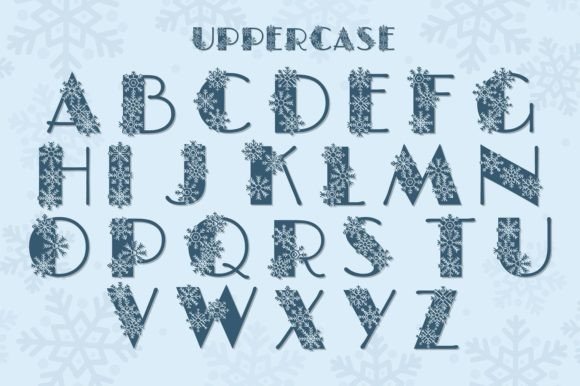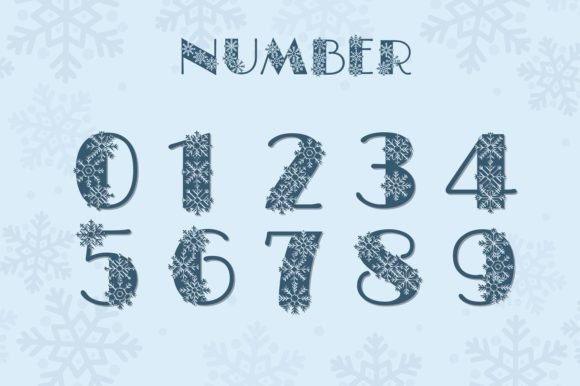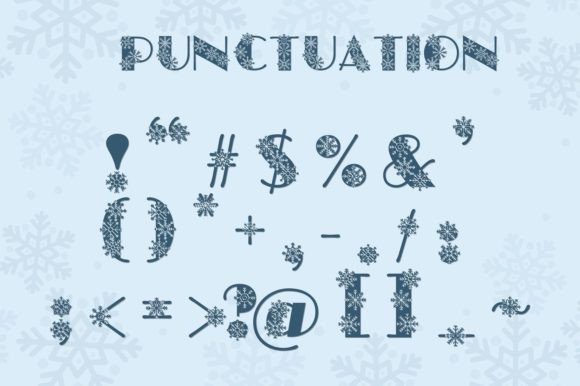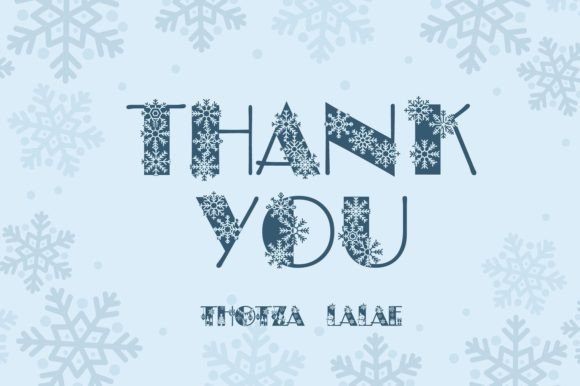
Introduction to Snow Christmas Font Font
Fonts play a crucial role in design, and the Snow Christmas Font font is a typeface that brings both character and versatility to any project. Whether you’re working on a branding project, a website, or a print design, the Snow Christmas Font font offers a unique style that can elevate your work.
Snow Christmas is a sweet and festive decorative font.
Cheerful and bright, this font is perfect for all your winter holiday projects .
Key Features of Snow Christmas Font Font
Why Choose Snow Christmas Font Font?
The Snow Christmas Font font is more than just a typeface – it’s a design tool that helps you communicate your message with style and clarity. Its unique character set and versatile design make it suitable for a wide range of applications, from elegant invitations to bold headlines.
With its carefully crafted letterforms and balanced proportions, the Snow Christmas Font font ensures readability and visual appeal across all mediums.
What makes Snow Christmas Font font special?
The Snow Christmas Font font stands out with its unique design, exceptional readability, and versatility across various design applications.